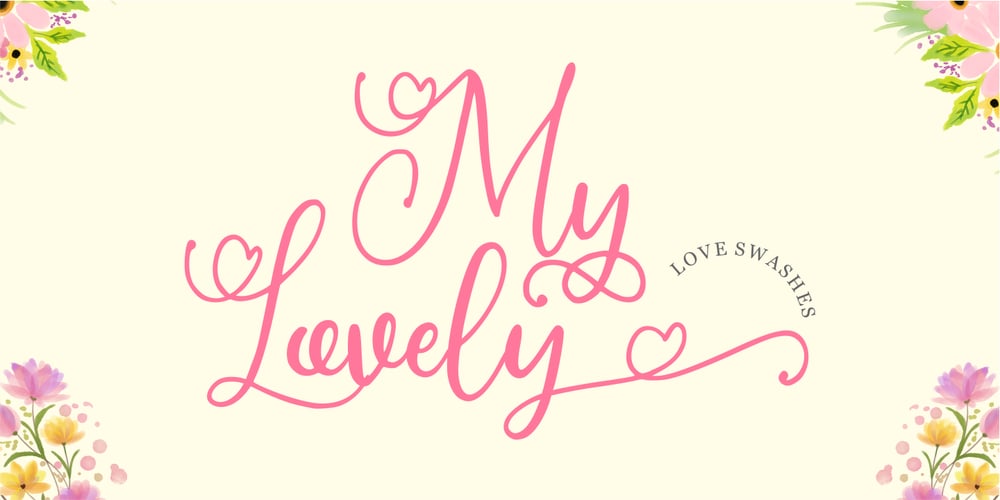
My Lovely
My Lovely font
My Lovely Font Family was designed by Good Java and published by Good Java Studio. My Lovely contains 1 styles and family package options. My Lovely is a beautiful script font made with many swashes in start and ending character, offering beautiful love swashes. This font includes a full set of swash heart lowercase letters, numerals, and punctuation. It also includes opentype Ligatures and Stylistic Setuntil 10 option. This is so perfect for invitations, monograms, wedding, fashion, branding, labels or logotype.